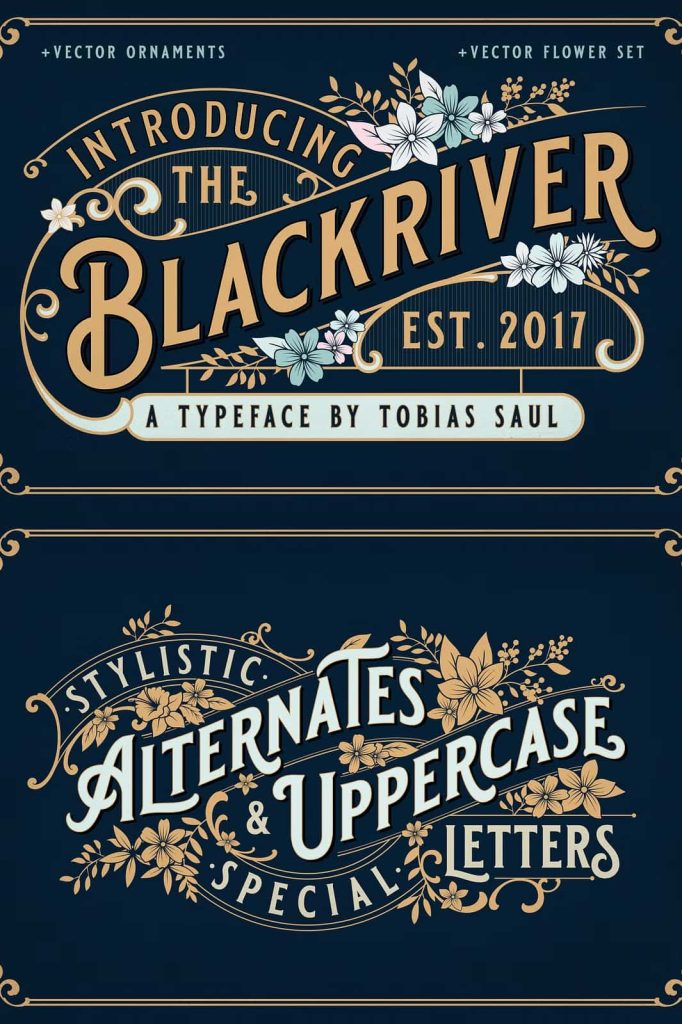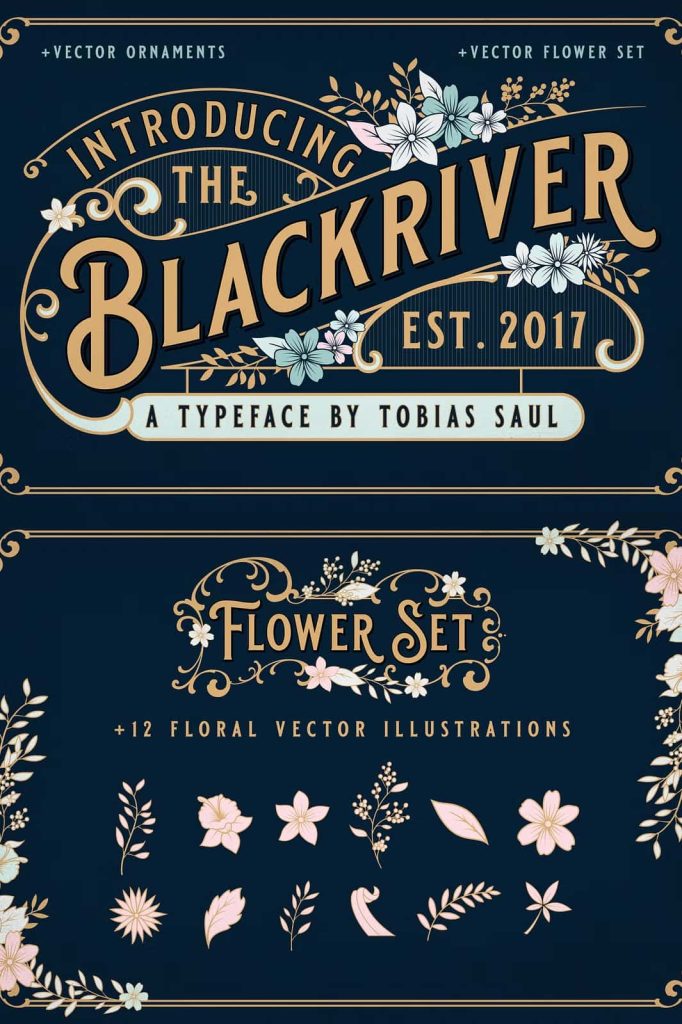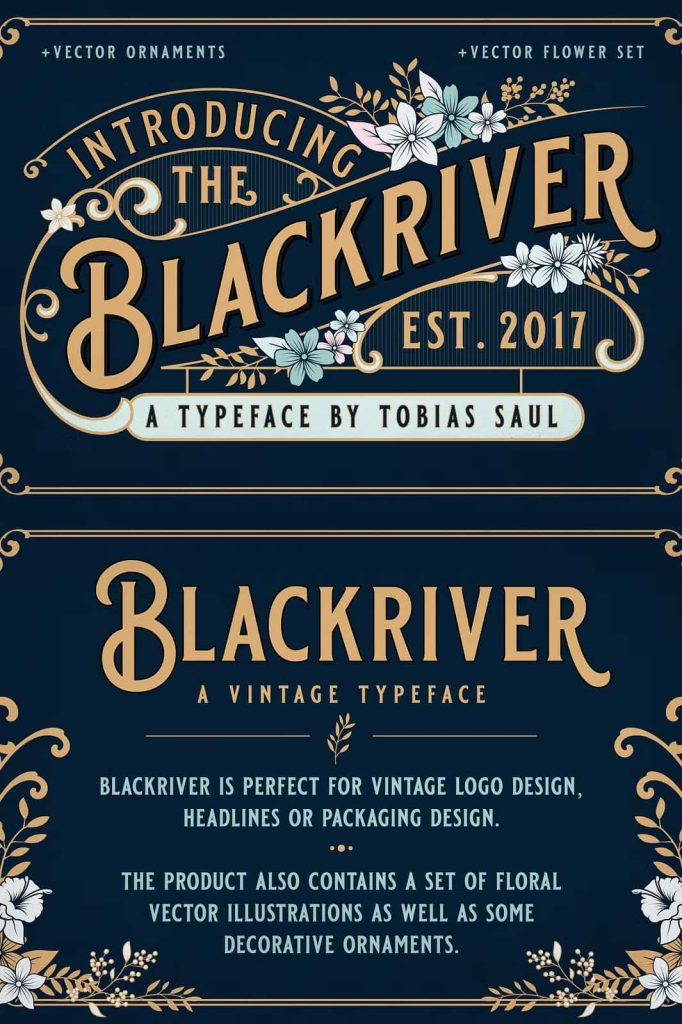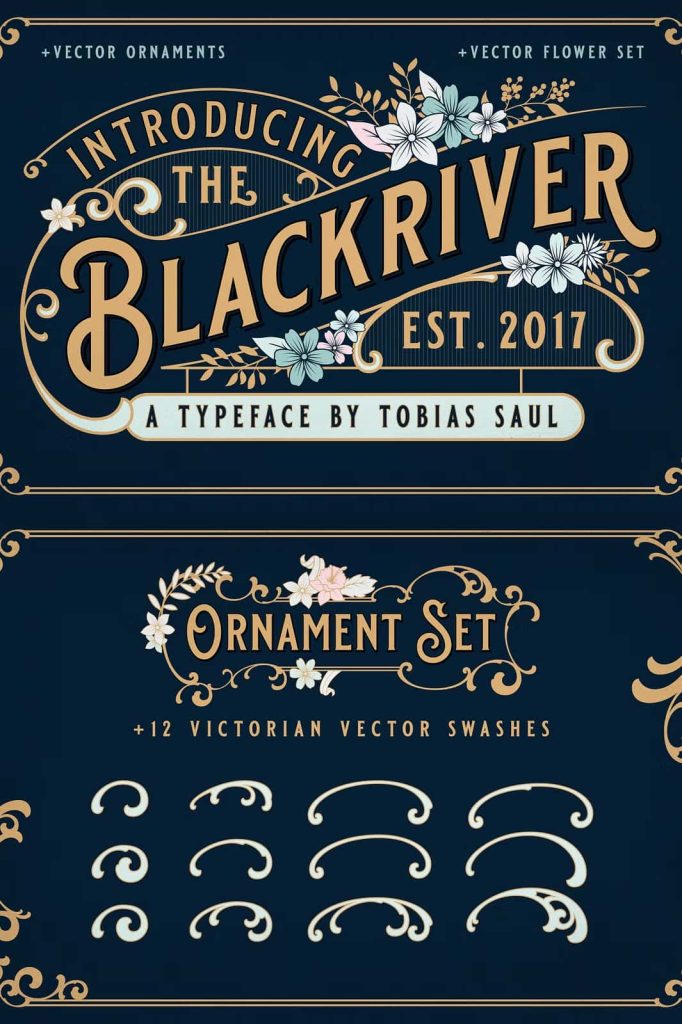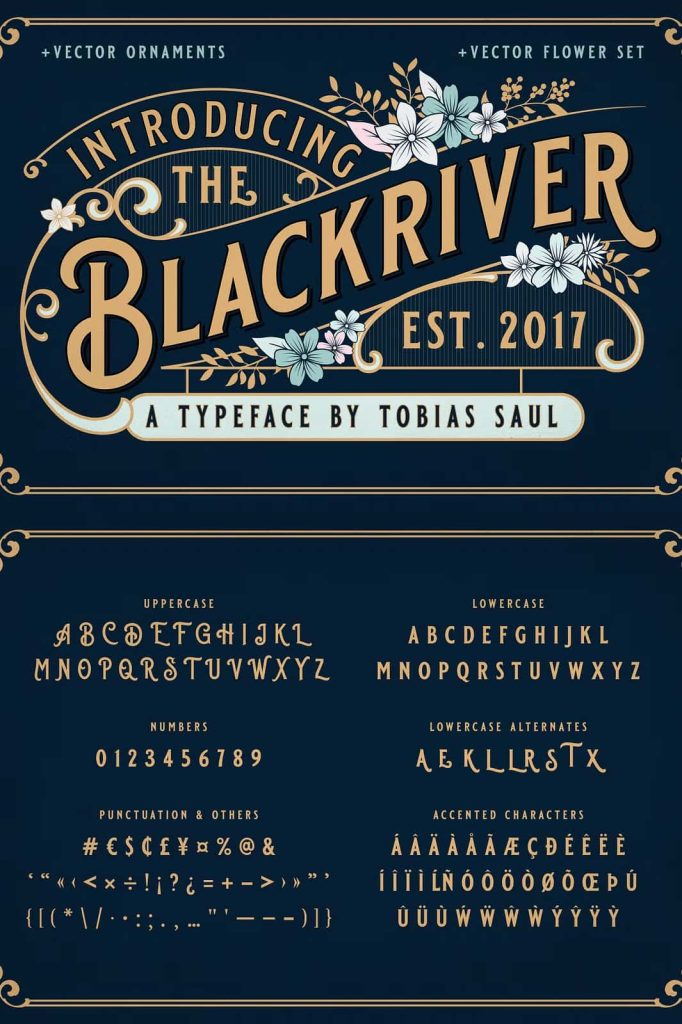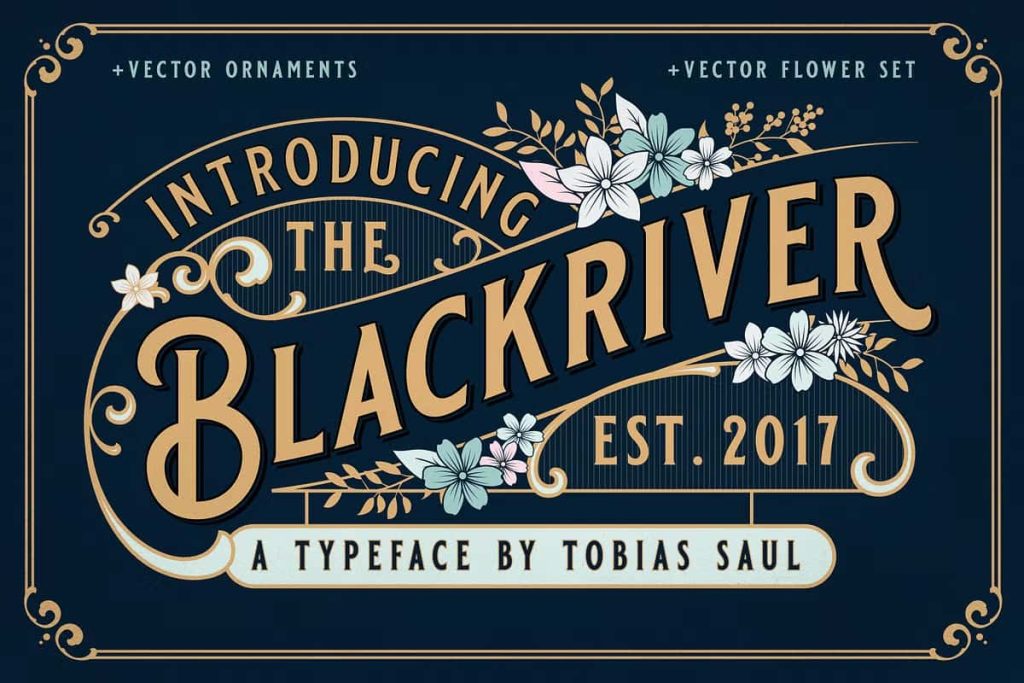
Blackriver Font + Ornaments
Blackriver – A Vintage Font Inspired by Classic Packaging
Blackriver is a distinctive vintage font inspired by the timeless design style of early twentieth-century packaging and advertising. This typeface captures the bold character and decorative charm that defined classic commercial design during that era. With strong letterforms and carefully balanced details, Blackriver helps designers recreate the nostalgic atmosphere of vintage branding while maintaining modern usability.
Designers often search for typography that communicates heritage, craftsmanship, and authenticity. Blackriver delivers exactly that through its retro-inspired letterforms and decorative elements. The font reflects the visual language found in antique labels, traditional product packaging, and early advertising posters.
By combining expressive typography with ornamental graphics, Blackriver allows designers to build authentic vintage layouts quickly and efficiently. Whether you are designing a logo, product label, or promotional poster, this font provides the foundation for eye-catching retro design.
A Vintage Font Inspired by Early 20th Century Design
The inspiration behind Blackriver comes from historical packaging and advertising materials that were widely used in the early 1900s. During that time, designers relied heavily on decorative typography and detailed ornamentation to attract attention in crowded marketplaces. Product labels often featured bold lettering, elegant flourishes, and intricate patterns that communicated quality and tradition.
Blackriver recreates this aesthetic with carefully crafted letterforms that echo the typography found in vintage signage and packaging. The characters feature strong shapes and distinctive details that give the font a confident and nostalgic appearance. When used in modern design projects, the typeface instantly evokes a sense of heritage and authenticity.
This vintage font allows designers to connect contemporary design with classic visual traditions. By using Blackriver, you can easily recreate the atmosphere of historic branding while maintaining modern design flexibility.
Perfect for Vintage Logo Design
Blackriver works exceptionally well in logo design, particularly for brands that want to communicate authenticity and tradition. Vintage-style logos often rely on expressive typography to create strong visual identity. The bold letterforms of Blackriver help designers craft logos that feel timeless and memorable.
Businesses that emphasize craftsmanship, heritage, or artisanal quality can benefit greatly from this design style. Breweries, coffee brands, restaurants, barbershops, and handcrafted product lines often use vintage typography to reinforce their brand story. Blackriver provides the typographic personality needed to support these brand identities.
The font’s strong visual presence ensures that logos remain recognizable across packaging, signage, marketing materials, and digital platforms.
Design Applications for Blackriver
• Vintage logo design
• Product packaging and labels
• Retro advertising posters
• Brand identity projects
• Headline typography
• Restaurant and café branding
• Barbershop and lifestyle brands
• Decorative signage and labels
Create Eye-Catching Headlines and Posters
Blackriver is also highly effective for headline typography. Its bold vintage character allows titles and headings to stand out clearly in posters, advertisements, and editorial layouts. Designers can use the font to create attention-grabbing headlines that reflect classic design traditions.
In advertising design, typography often serves as the primary visual element. Vintage advertising frequently relied on large, expressive lettering to communicate key messages quickly. Blackriver follows this same principle by offering strong and decorative characters that command attention.
Whether used in posters, promotional graphics, or product campaigns, the font helps establish a powerful visual tone that captures the spirit of retro advertising.
Enhance Packaging Design with Vintage Style
Packaging design benefits greatly from distinctive typography. Products that want to stand out on store shelves often use vintage aesthetics to communicate authenticity and heritage. Blackriver provides the perfect typographic foundation for this style.
The font’s bold shapes and decorative character help product labels feel handcrafted and traditional. This makes it especially suitable for food packaging, beverage labels, craft goods, and specialty products. When combined with classic color palettes and textured backgrounds, Blackriver can create packaging that feels both nostalgic and premium.
Designers can easily build complete packaging layouts using the font alongside the included decorative elements.
Includes Floral Vector Illustrations and Decorative Ornaments
One of the standout features of the Blackriver package is the inclusion of floral vector illustrations and decorative ornaments. These elements complement the vintage typography perfectly and allow designers to build detailed layouts without needing additional graphic resources.
The floral illustrations add elegance and decorative charm, while the ornamental graphics help frame text and create balanced compositions. Designers can use these elements to decorate logos, packaging labels, posters, and branding materials.
This combination of typography and illustrations gives designers the ability to create complete vintage design systems quickly. Instead of searching for separate graphic assets, everything needed for a cohesive retro design is included in one package.
Build Beautiful Vintage Designs Quickly
Blackriver was created to simplify the process of building vintage-inspired designs. By combining expressive typography with matching decorative elements, the package allows designers to create professional layouts in less time. The font works seamlessly with the included ornaments and illustrations, making it easy to assemble visually rich compositions.
Designers can experiment with different combinations of typography and decorative graphics to create unique layouts that reflect the personality of their projects. Whether you are designing packaging, signage, or branding materials, Blackriver provides the flexibility needed to produce authentic vintage results.
Bring Vintage Character to Your Typography
Blackriver is more than just a decorative typeface. It is a complete vintage design tool that helps designers capture the charm and craftsmanship of early twentieth-century advertising. The bold typography, floral vector illustrations, and ornamental details work together to create authentic retro aesthetics.
If you want to design memorable vintage logos, eye-catching packaging, or nostalgic promotional graphics, Blackriver provides the perfect foundation. With its rich visual character and versatile design elements, this vintage font makes it easy to bring classic design inspiration into modern creative projects.